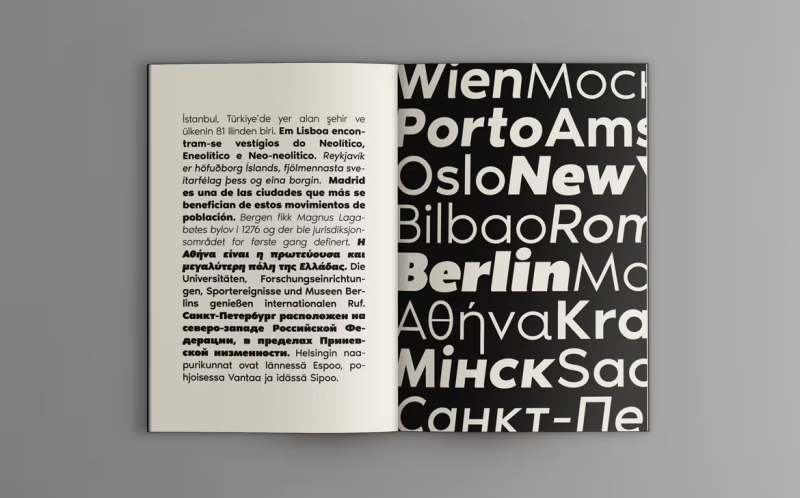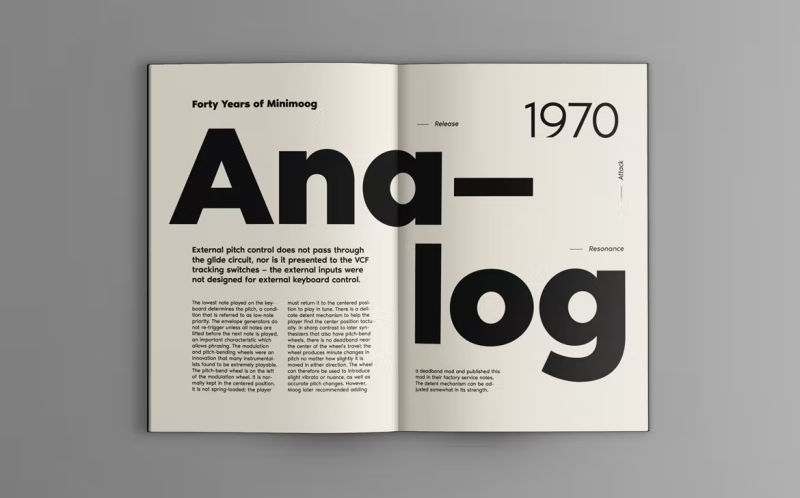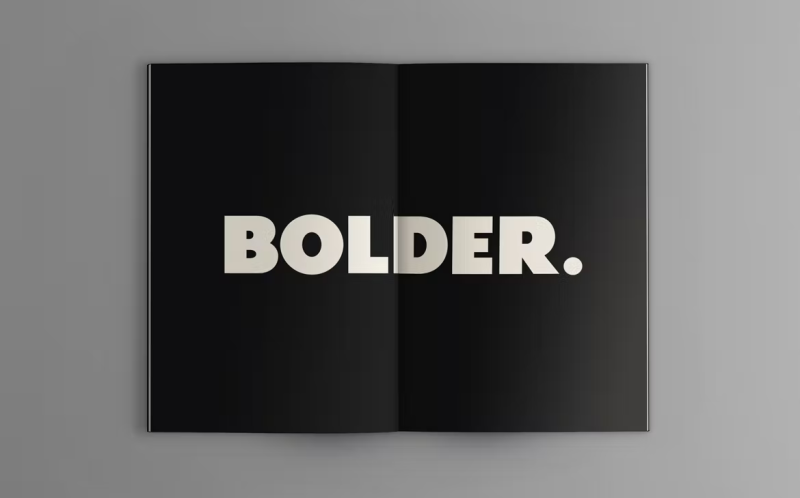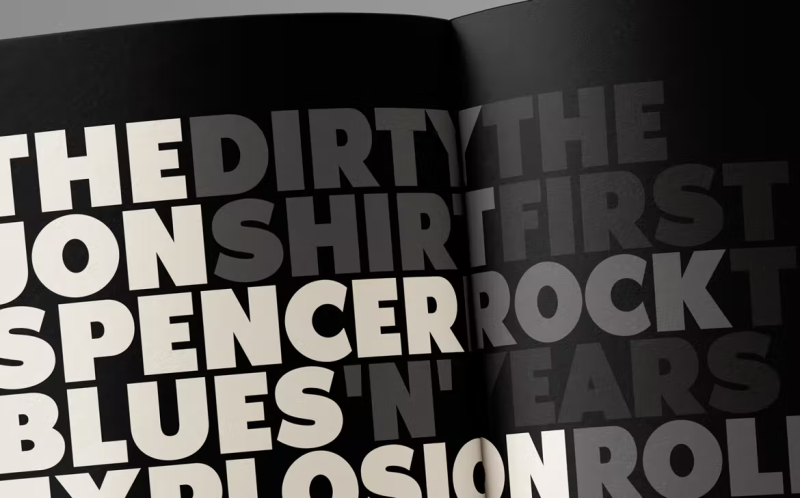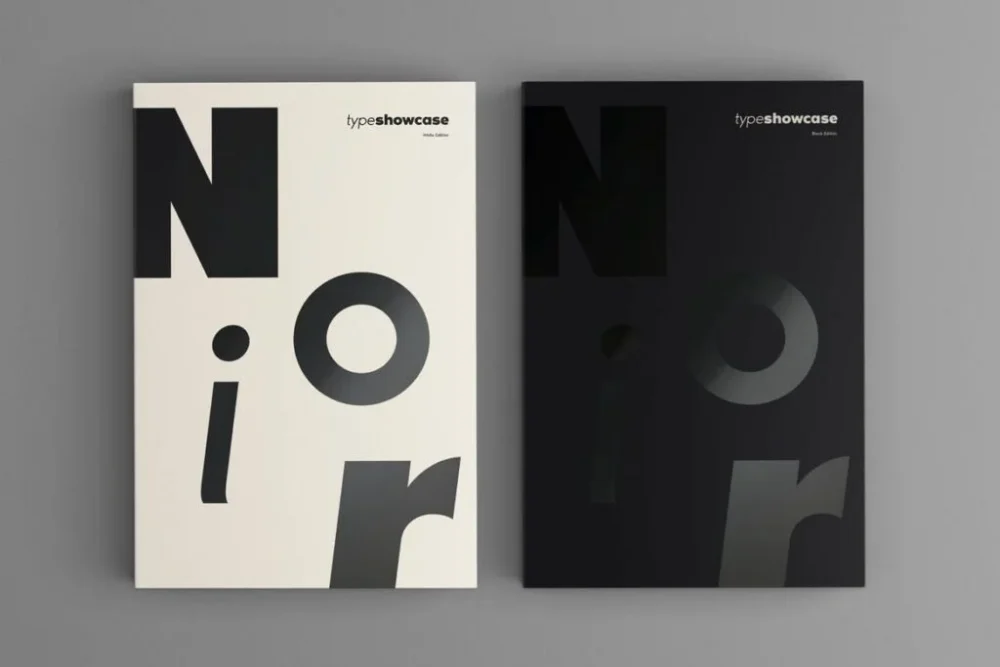
Noir Pro Font
Noir Pro Font is a sans serif font family of 12 fonts with contemporary aesthetics heavily influenced by early 20th century geometric typefaces. While having its geometr…
Noir Pro Font is a sans serif font family of 12 fonts with contemporary aesthetics heavily influenced by early 20th century geometric typefaces. While having its geometric structure it carries an organic personality with a touch of warmth injected into each form.
Noir font family ranges from light and elegant weights perfect for a small text to extremely heavy and masculine weights suited for large display sizes.
Noir has a rich arsenal of Open Type features for highly professional use and extended Latin, Cyrillic and Greek language support.